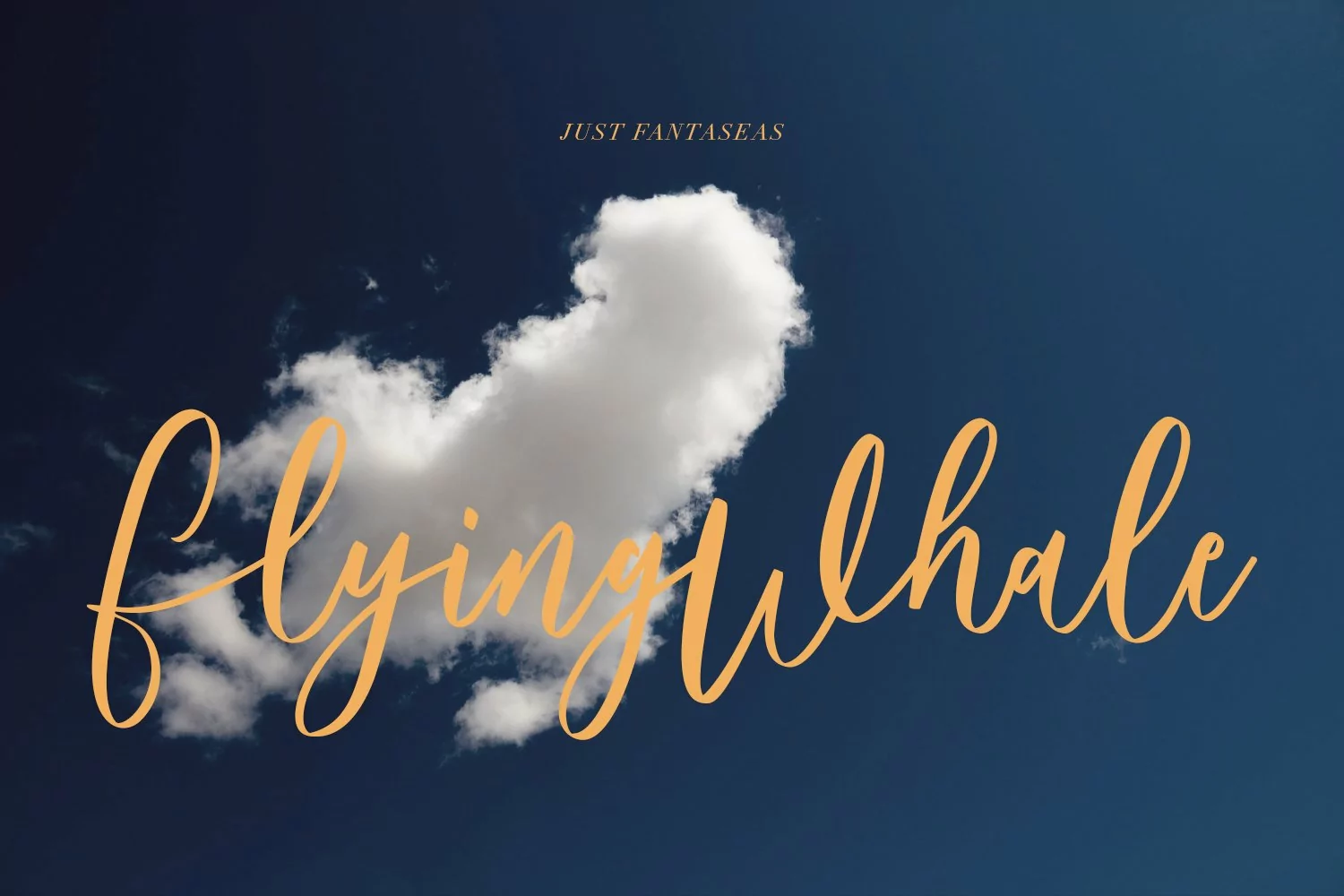
Sunfort Signature Script Font
Give your designs an authentic handcrafted feel. Sunfort Signature Script Font is perfectly suited to stationery, logos and much more.